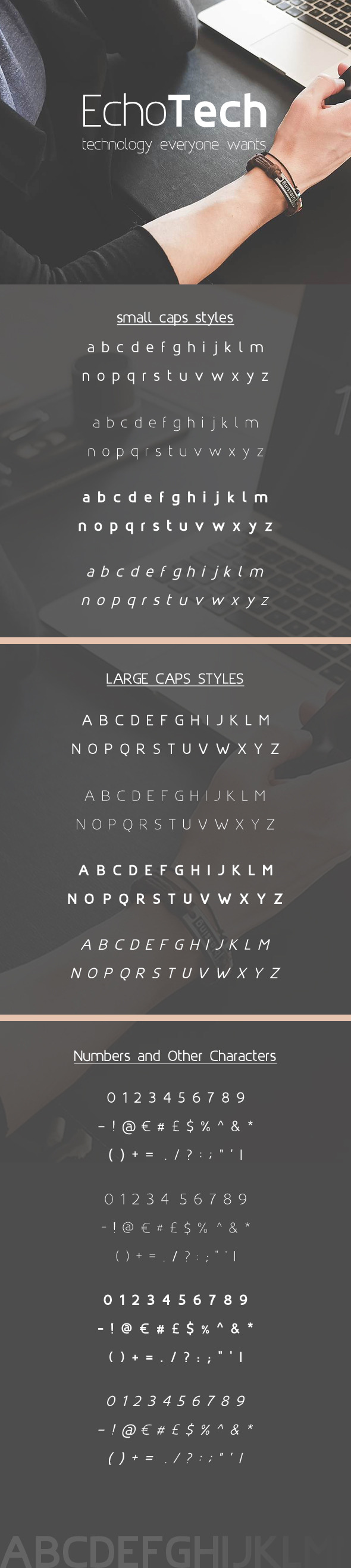
EchoTech Font
EchoTech modern sans-serif font. Ideal for any modern it business, gaming company, casino, poker, sportsbook, bingo, live casino font. Can also be used by eco company and any business.